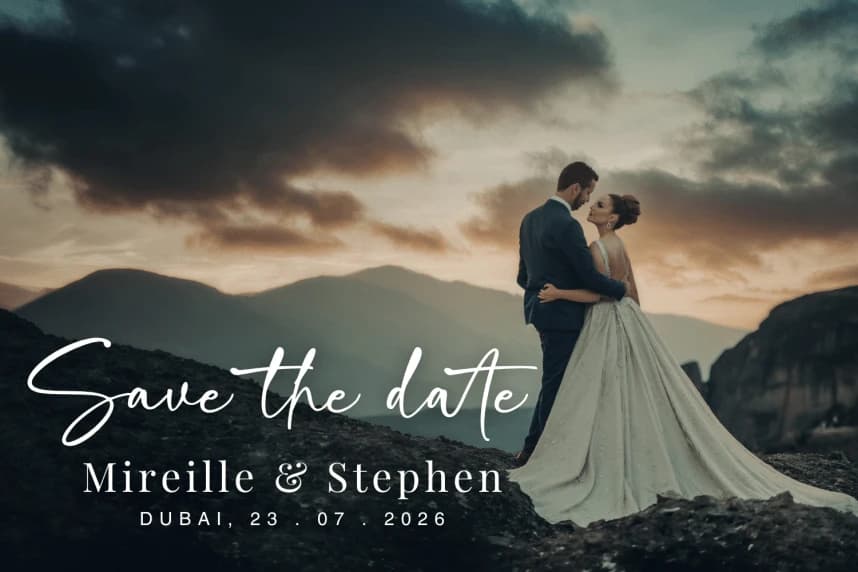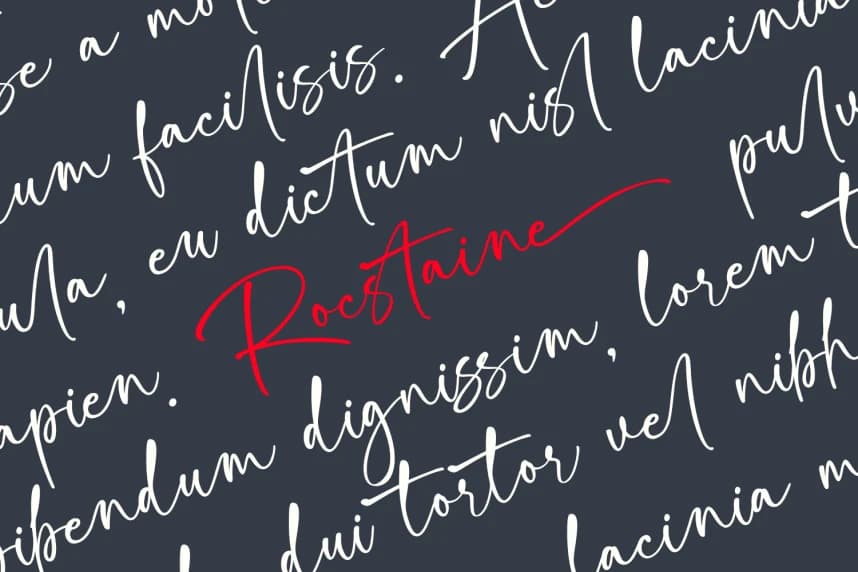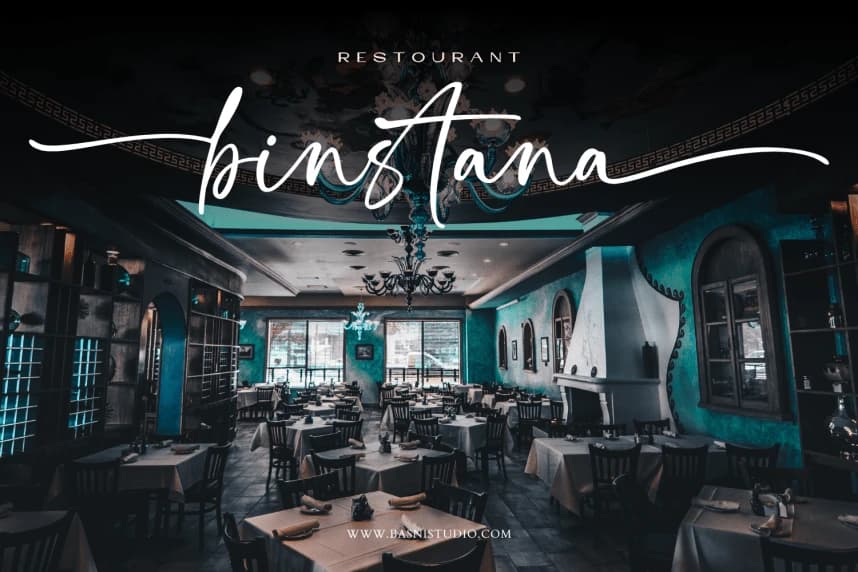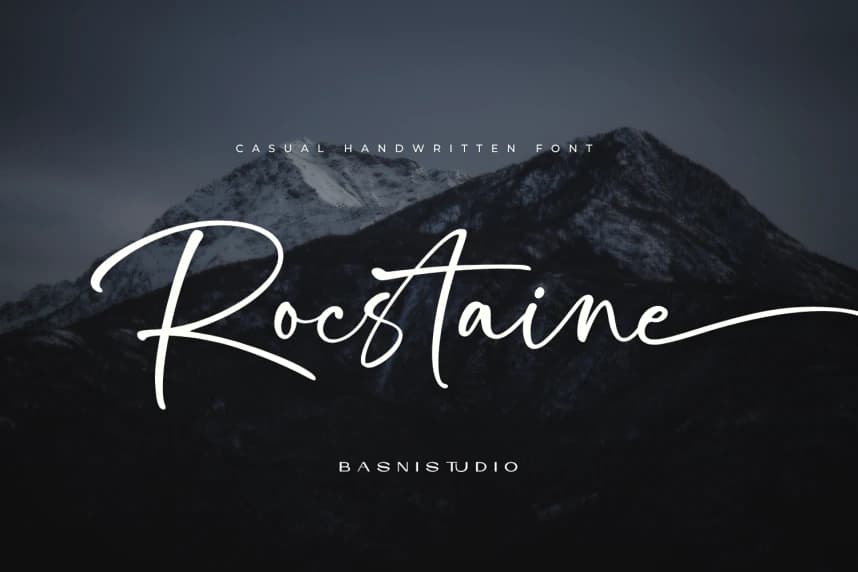
Rocstaine – Casual Handwritten Font
Rocstaine Font an Casual handwritten font crafted with authentic Brush for Natural & Casual touch for everything from branding and social media to invitations and packaging.
Rocstaine – Casual Handwritten